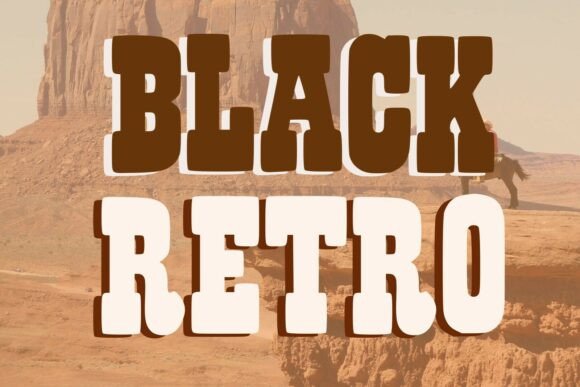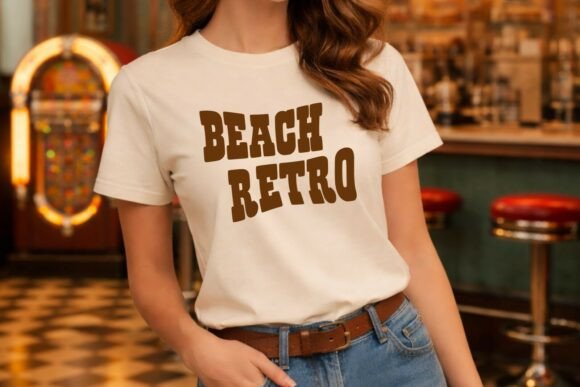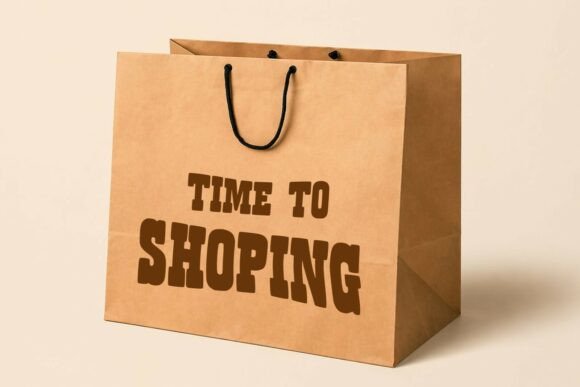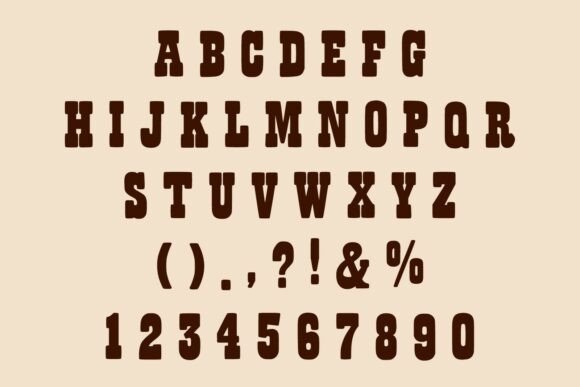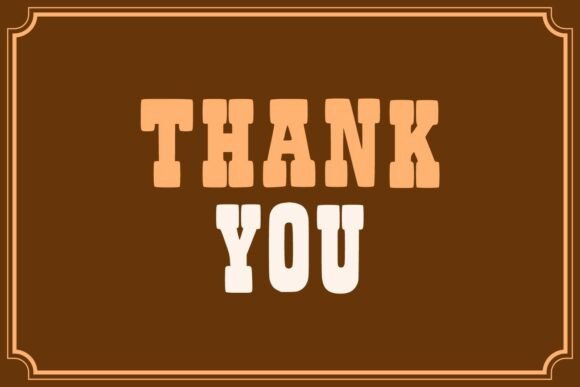
The Wild West of Typography: Discovering Boston Western Font
I’ll never forget the time I was working on a project for a client who wanted a bold, vintage western-themed logo. I had spent hours scouring the internet for the perfect font, but nothing seemed quite right. That was until I stumbled upon Boston Western Font. With its strong slab-style characters and retro saloon aesthetic, it perfectly captured the spirit of the wild west. In this article, I’ll share my experience with Boston Western Font, and provide a comprehensive guide on how to use it in your designs.
So, what makes Boston Western Font so special? Here are a few things that I love about this font:
- ✨ Bold and eye-catching: Boston Western Font is perfect for making a statement. Its bold characters are sure to grab attention and add a touch of wild west flair to your designs.
- ✅ Retro aesthetic: The font’s retro saloon aesthetic is perfect for creating vintage-inspired designs that evoke the spirit of the old west.
- 💯 High-quality design: The font is carefully crafted with attention to detail, making it perfect for professional designs.
Of course, no font is perfect, and Boston Western Font has a few quirks to be aware of:
- 🤔 Limited use cases: While Boston Western Font is perfect for western-themed designs, it may not be the best choice for more formal or corporate designs.
- ⚠️ Legibility at small sizes: As with many bold fonts, Boston Western Font can be difficult to read at small sizes. Be sure to test it carefully before using it in your design.
The Story Behind Boston Western Font
Boston Western Font was inspired by the classic American western typography of the 19th century. The font’s designer, a typography enthusiast with a passion for the wild west, set out to create a font that would capture the spirit of the old west. The result is a bold, vintage-inspired font that’s perfect for creating western-themed designs.
| Font Name | Boston Western Font |
| Author | mardanimirza12 |
Here are a few frequently asked questions about Boston Western Font:
- Q: What type of designs is Boston Western Font best suited for?
- A: Boston Western Font is perfect for western-themed designs, such as posters, logos, branding, apparel, packaging, signage, and rustic projects.
- Q: Is Boston Western Font available in different styles or weights?
- A: Yes, Boston Western Font is available in a range of styles and weights, including bold, regular, and italic.